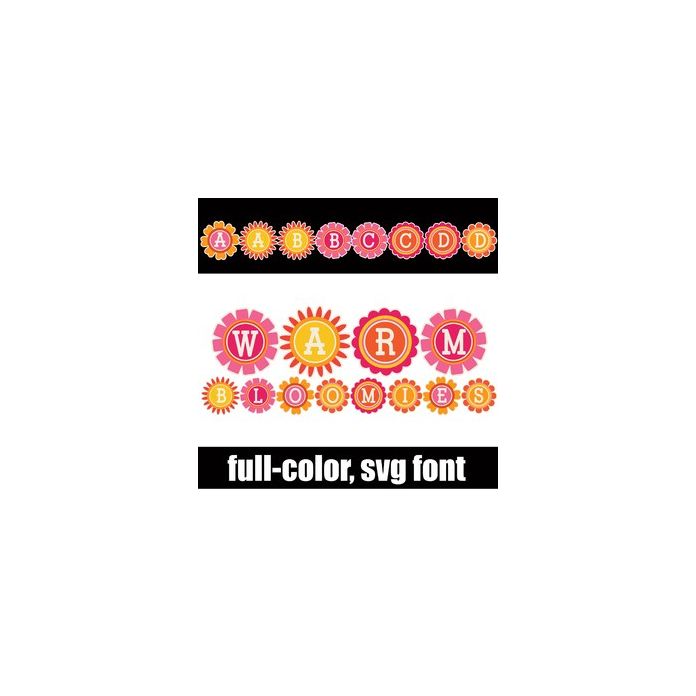
This whimsical font features letters inside blooms. This font works best for titles, displays, posters and more. Please note color fonts will show as black in non compatible programs. This font type is compatible with Silhouette Studio.